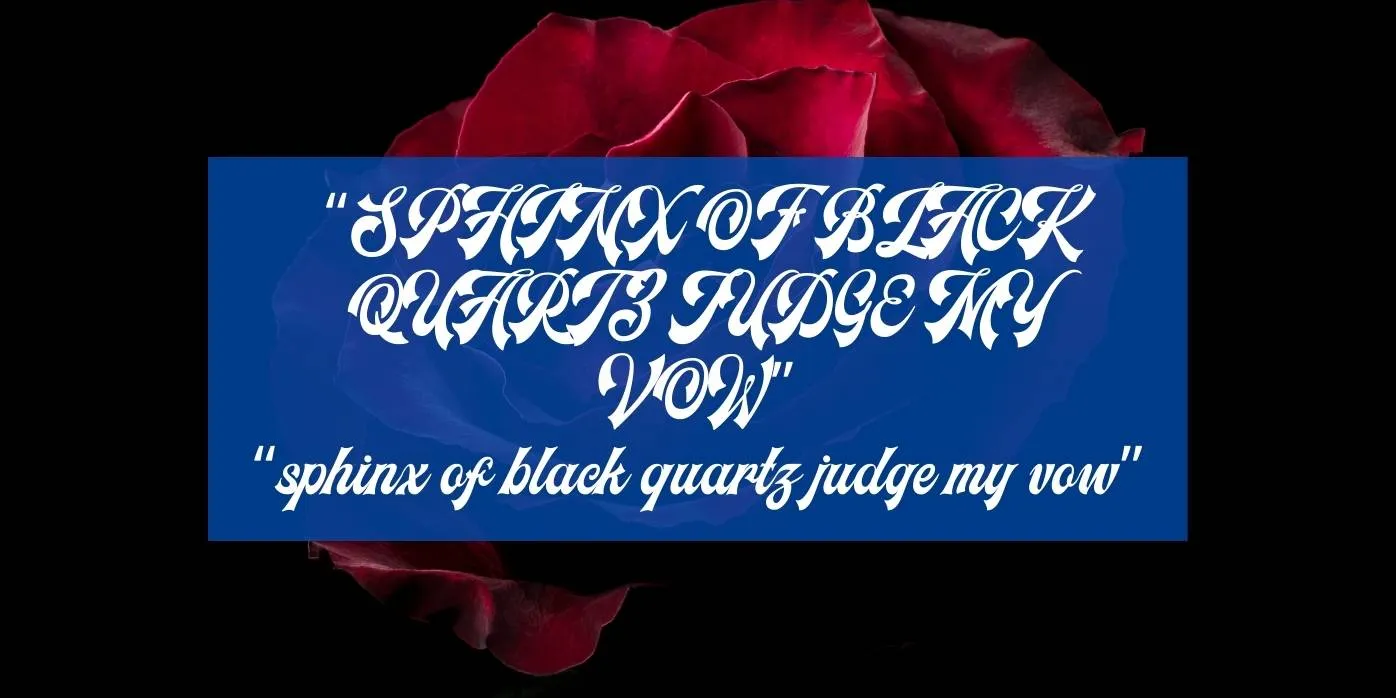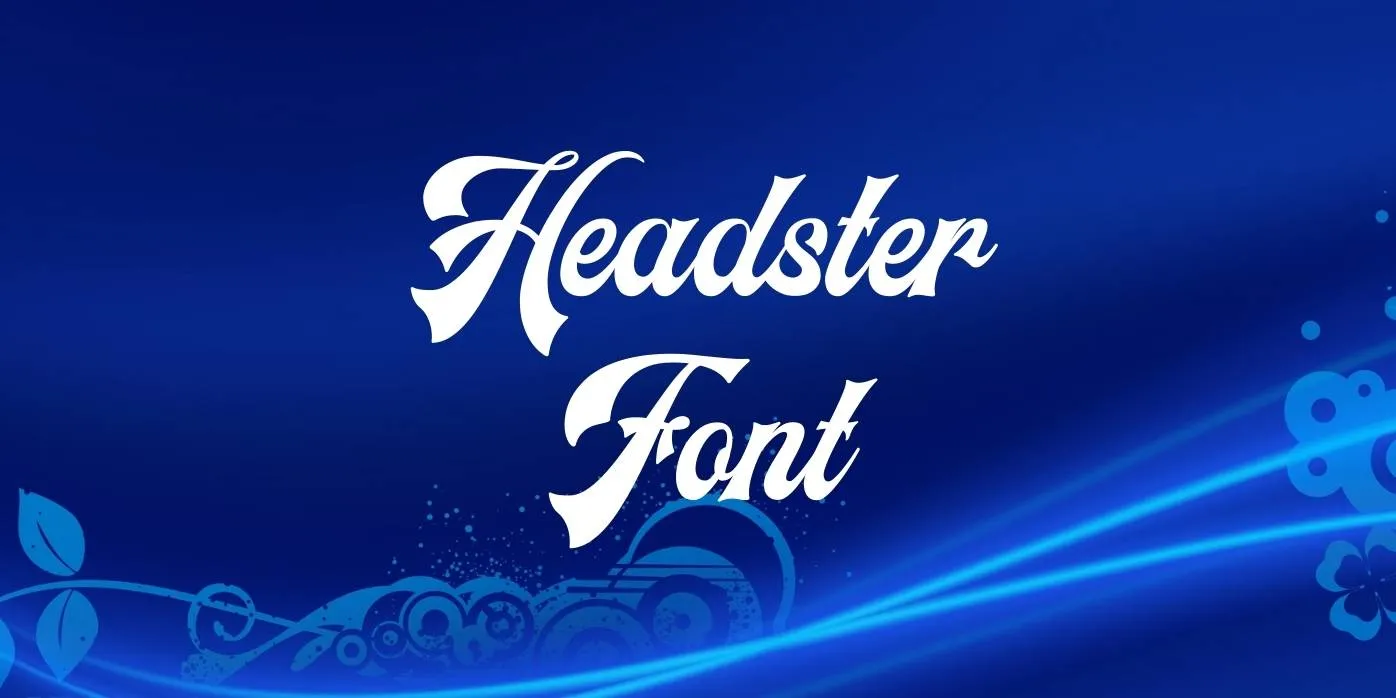
Headster Font
Headster Font is a very famous typeface that belongs to the script family. This stunning font family was designed by Bombastype. This classy font family includes three different styles namely Regular, Slanted, and Bold. All of these styles contain unique features that make this font family stand out from the rest.
The regular style is perfect for any kind of document or web page, while the slanted style is ideal for more creative purposes such as making logos or headlines. The bold style is perfect for making statements or creating impactful designs. Its copy and paste function is great for many text designs. This awesome typeface is very famous because of its stylish look.